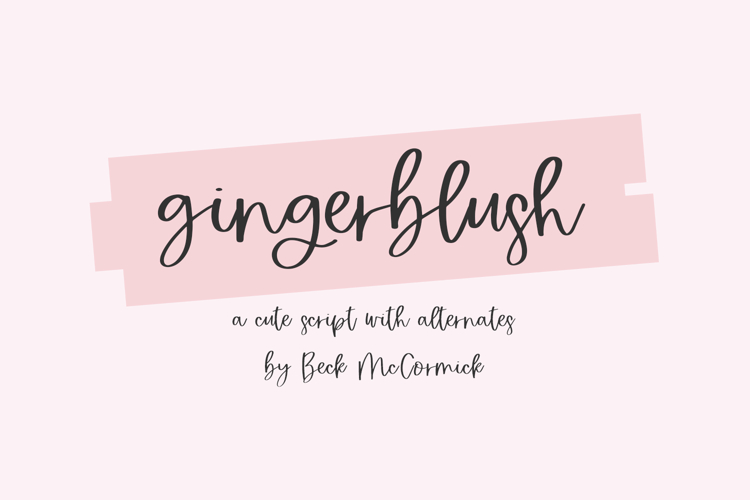
Gingerblush Script
Gingerblush Script is a cute script font. It’s a little bouncy and has a smooth edge, making it perfect for vinyl cutting projects, crafting, & more. Since Gingerblush is also quite legible, you could use it for digital planning with Goodnotes or Notability.
Gingerblush includes:
- 2 alternate characters - g, y